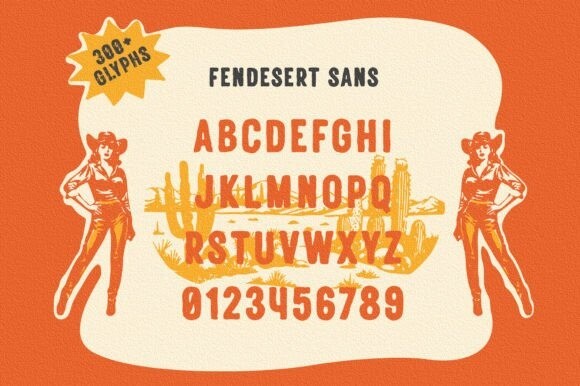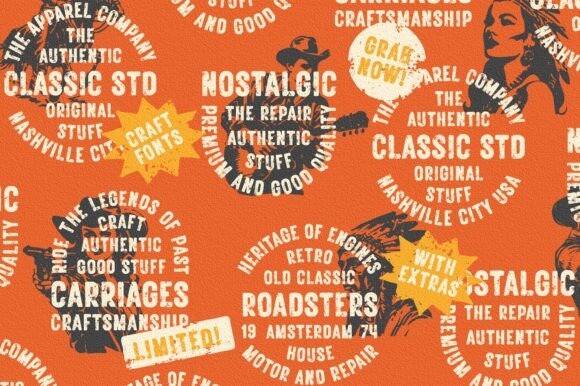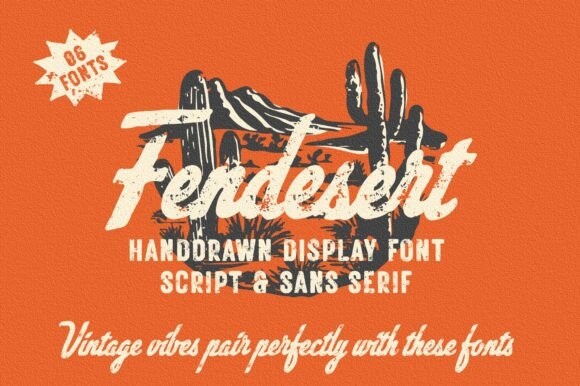
Fendesert Font
Fendesert Font – the ultimate vintage and stamp font duo. This collection features a pair script and san serif font in regular, rough, and stamp styles. Plus, you get 20 hand-drawn Western illustrations for added creativity. Perfect for logos, branding, apparel, and more. Unlock vintage charm with Fendesert.